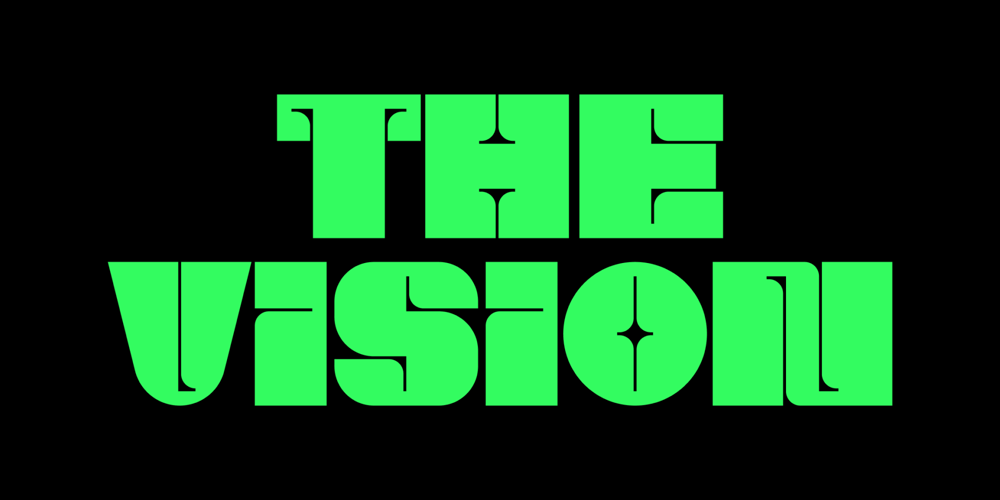
The Vision Type Font Family was designed by Oleg Coada and published by Oleg Coada. The Vision Type contains 1 styles and family package options. The Vision font is a display font with a temper. Has a bold and cheerful personality. Ideal if you want to add a new experience to your work.